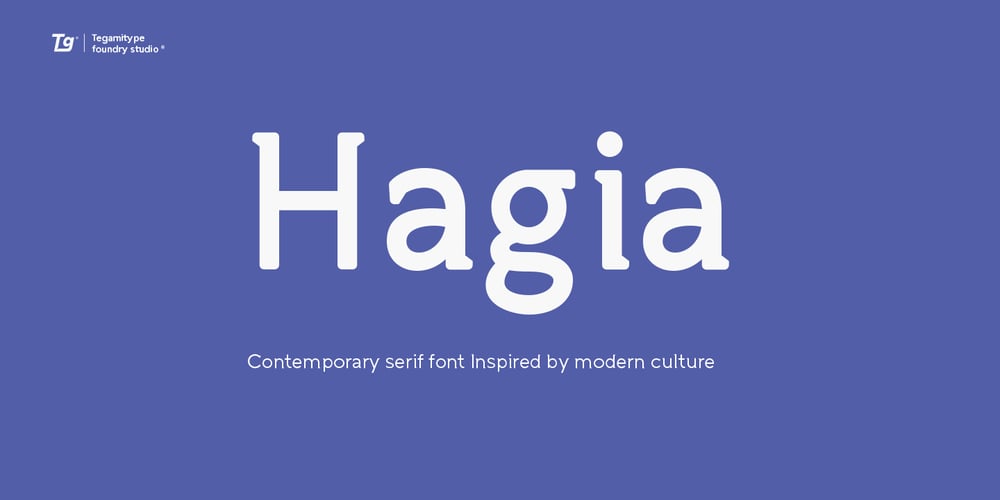
TG Hagia Font Family was designed by Iqbal Firdaus and published by Tegami Type. TG Hagia contains 3 styles and family package options. TG Hagia is contemporary serif font inspired by Modern Culture. This font is highly recommended for use as display and body text. Tg Hagia is available in three widths namely regular, semi-bold and bold.